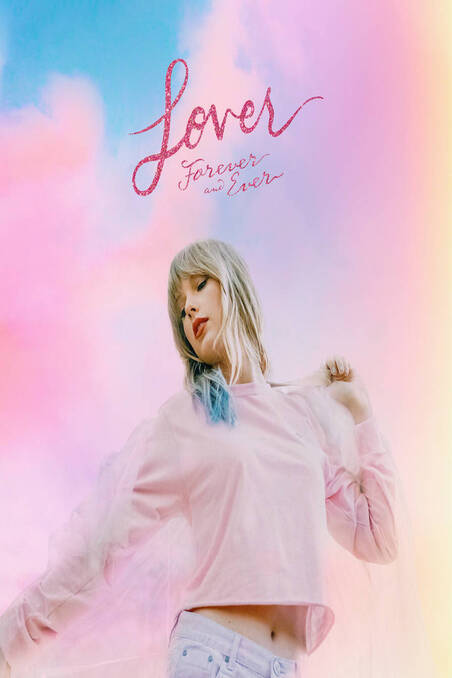
Lover Font
Lover is seventh studio album by Taylor Swift's and released on August 23, 2019. Music album marks the darker themes of her previous work, embracing a lighter,romantic and optimistic tone. The font is available in all caps, licenced as free for personal use and is free to download. Click the above link to download Lover font.